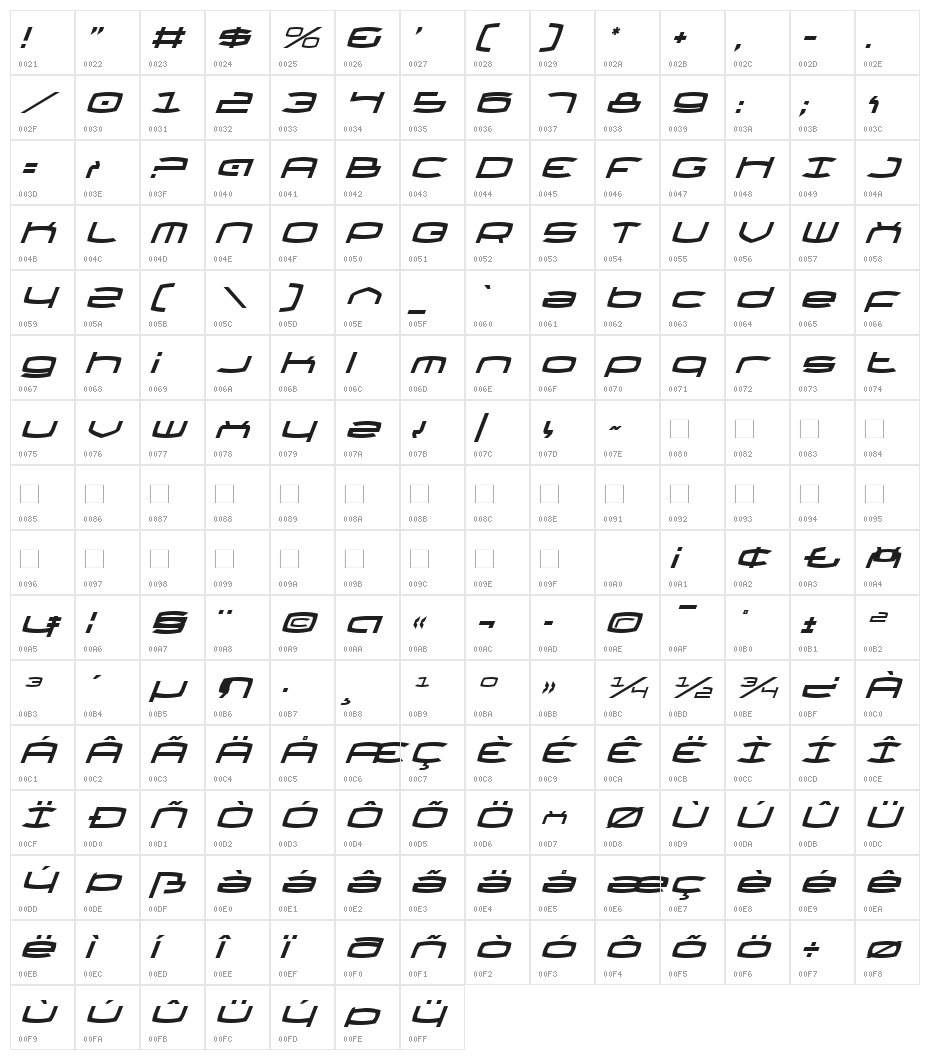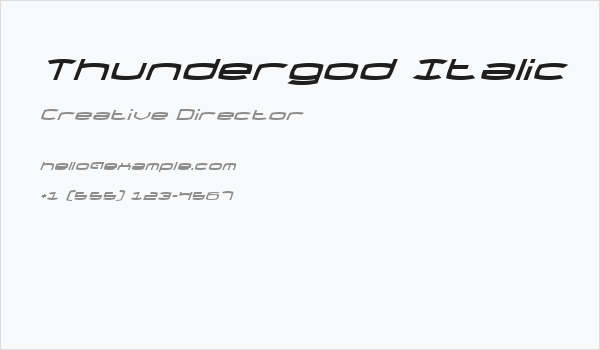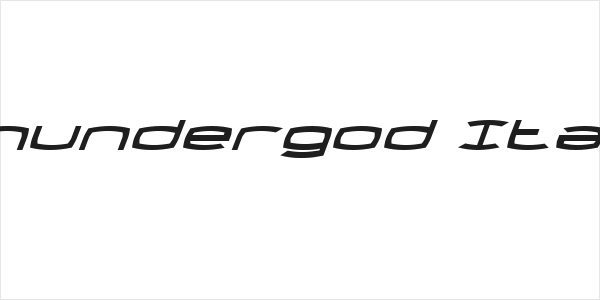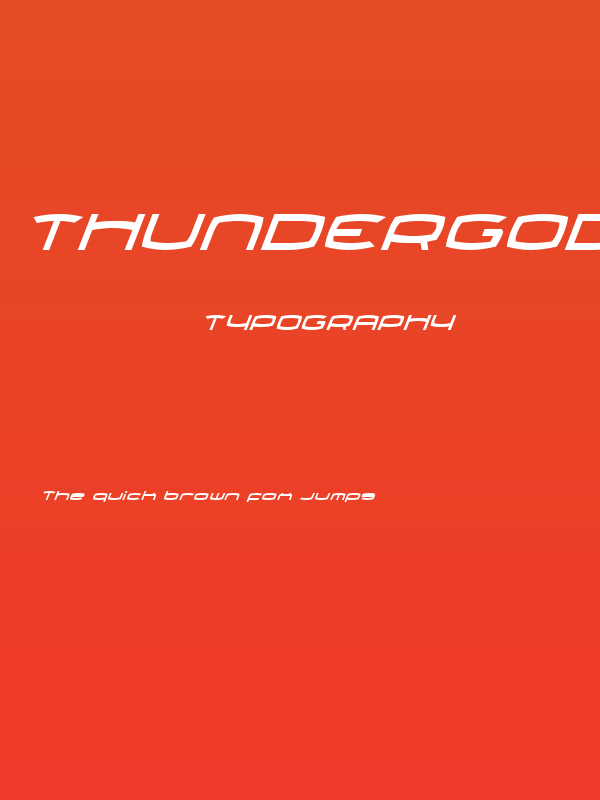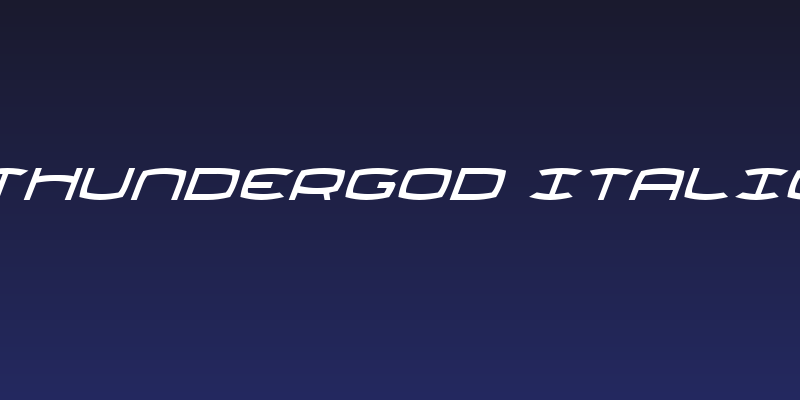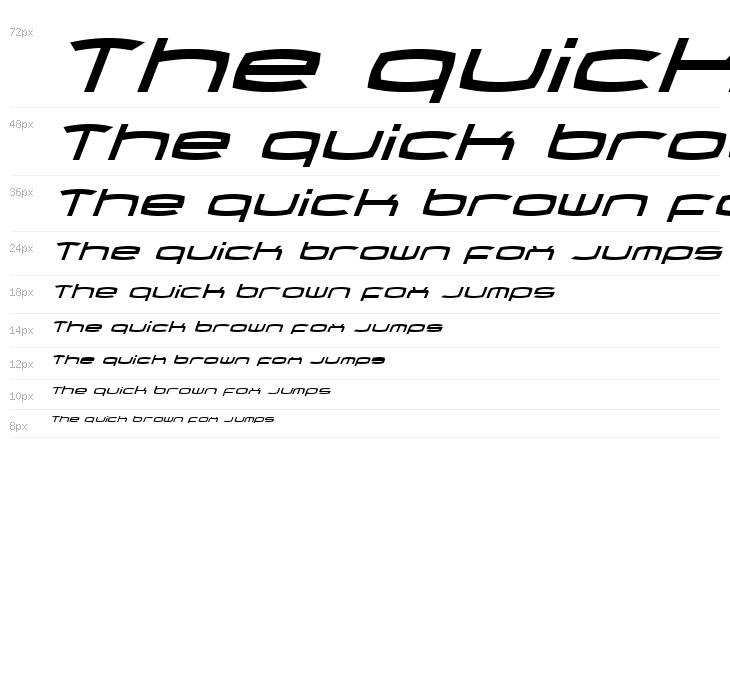
Thundergod Italic Font
Thundergod Italic Description
This font features a dynamic and energetic style with a distinct italic slant, giving it a sense of movement and speed. The characters are sleek and angular, with sharp edges and a futuristic appearance. The uppercase and lowercase letters maintain a consistent design, ensuring readability while adding a unique flair. Numbers and special characters are designed to match the overall aesthetic, making them suitable for various applications. The font's modern and edgy look makes it ideal for projects that require a bold statement.
| Proposed Projects | Ideal for sports branding, video game titles, sci-fi posters, and dynamic logo designs. |